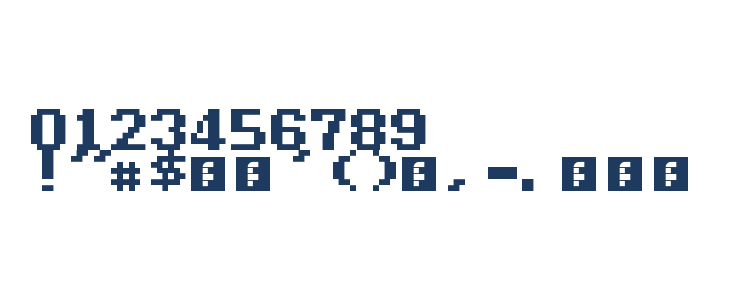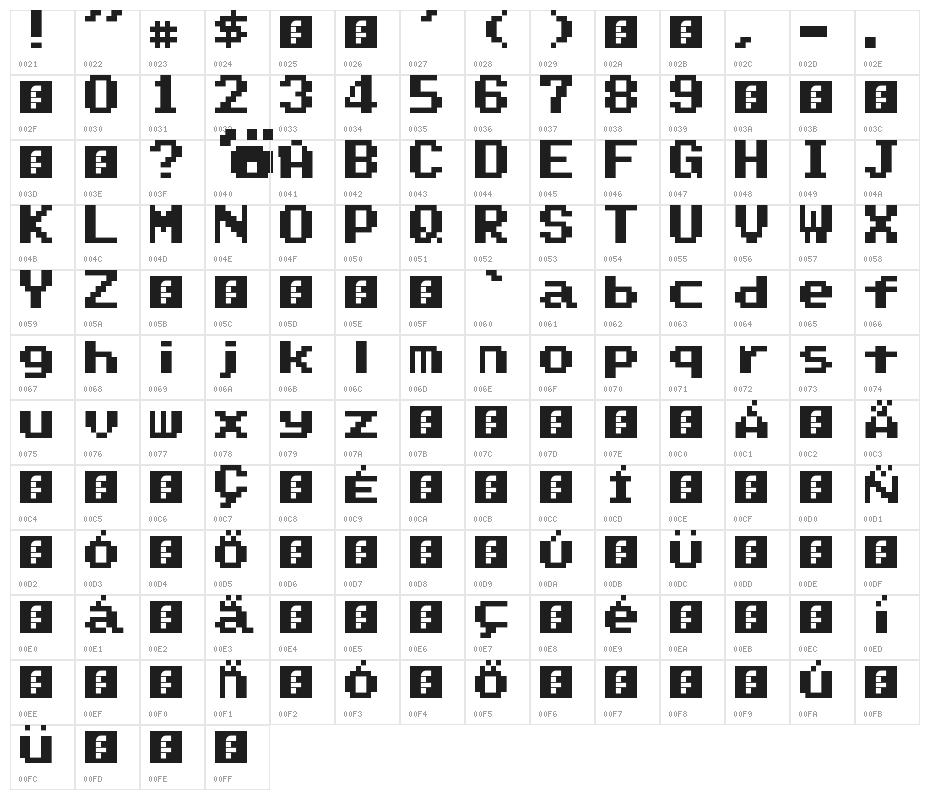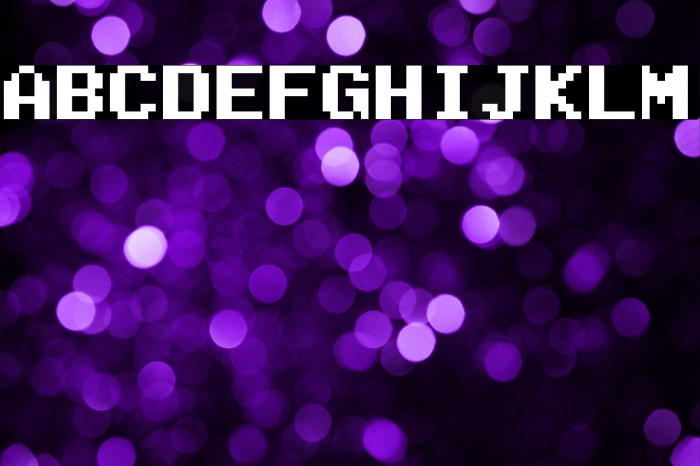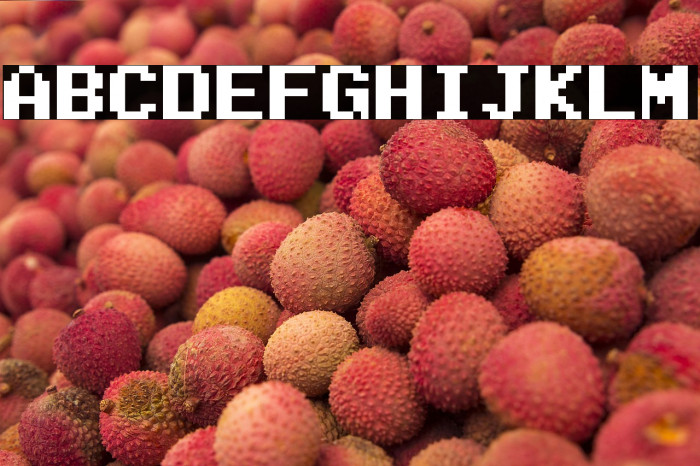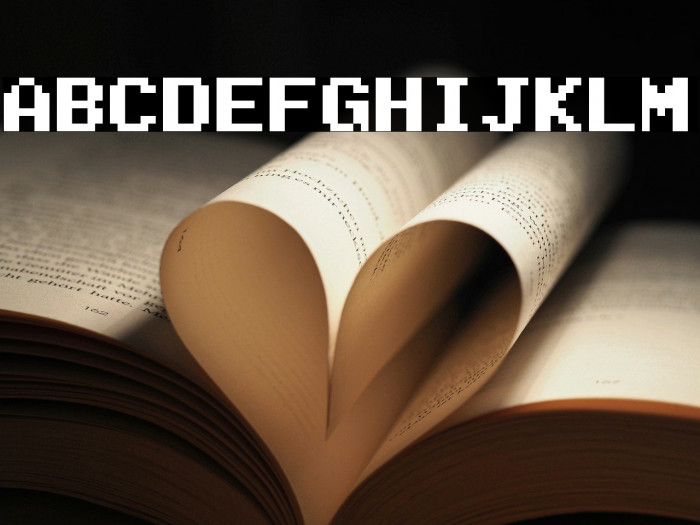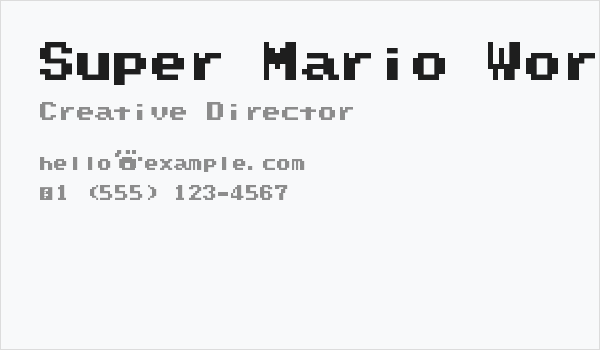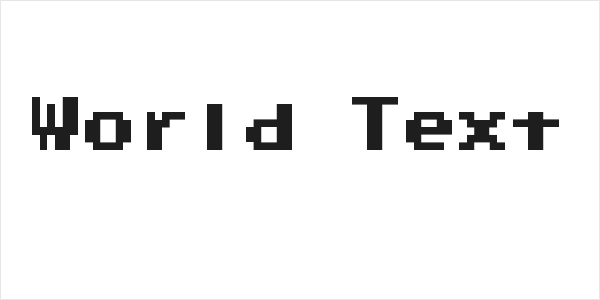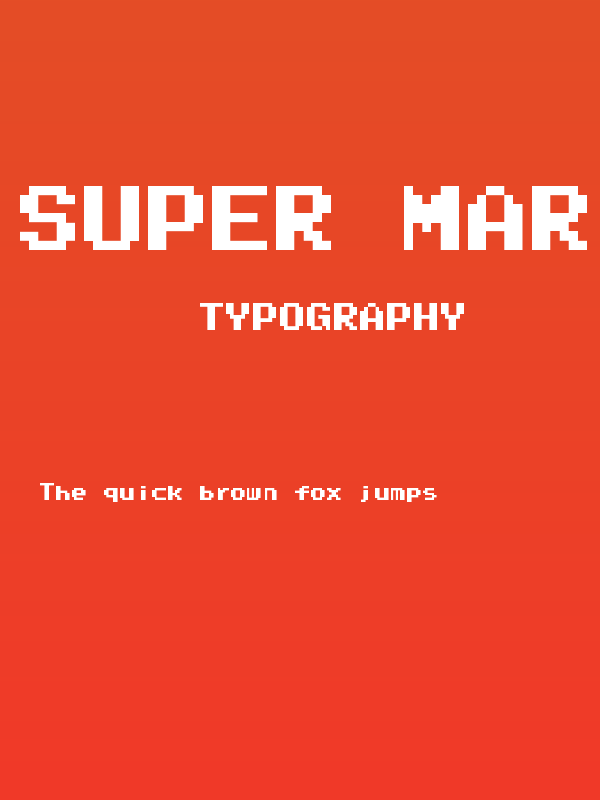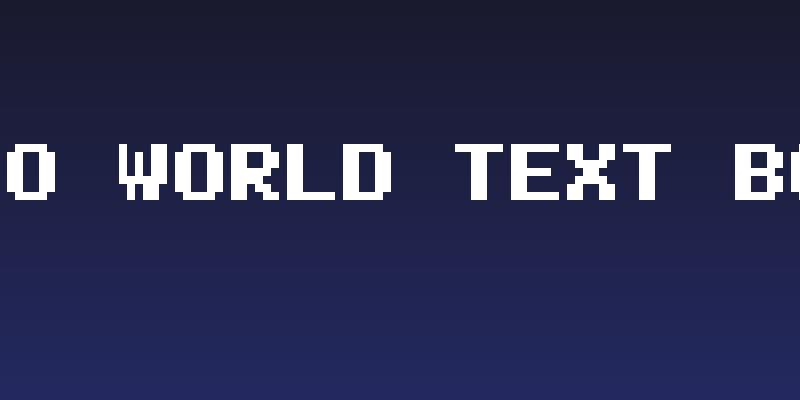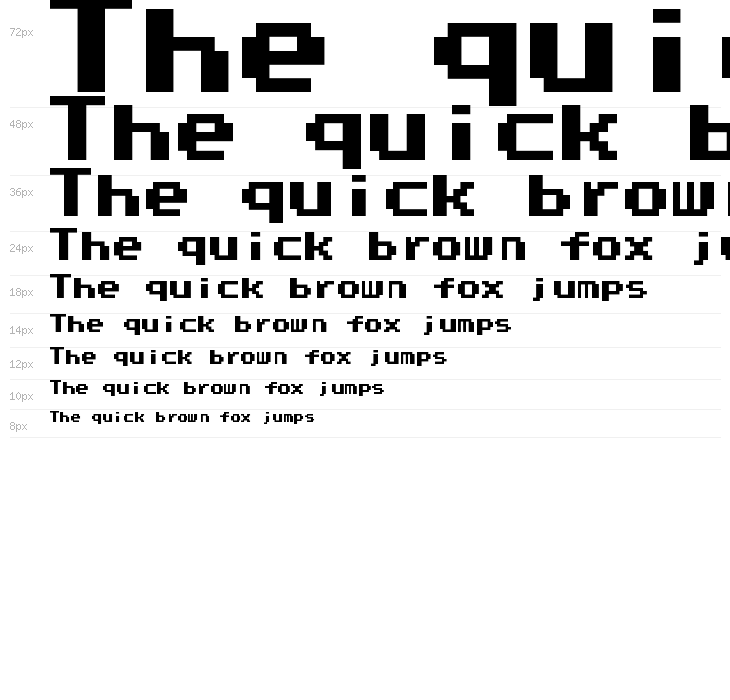
Super Mario World Text Box Regular Font
Super Mario World Text Box Regular Description
This font features a pixelated, blocky design reminiscent of classic video game graphics. Each character is constructed with a grid-like precision, giving it a retro, digital feel. The uppercase and lowercase letters maintain a consistent height and width, creating a uniform appearance. Numbers and special characters follow the same pixelated style, ensuring a cohesive look across all text elements. The font's simplicity and clarity make it ideal for digital displays and projects that aim to evoke nostalgia for early gaming aesthetics.